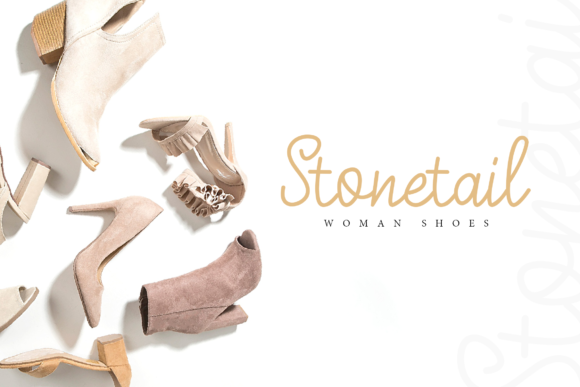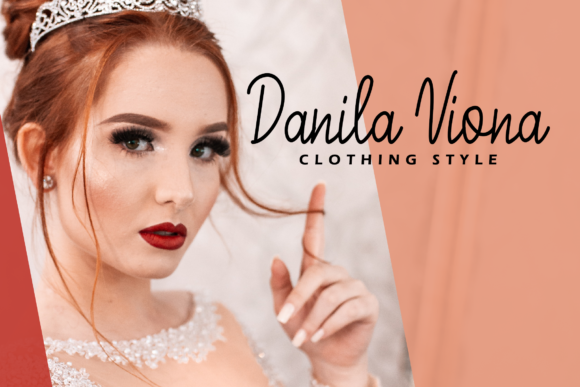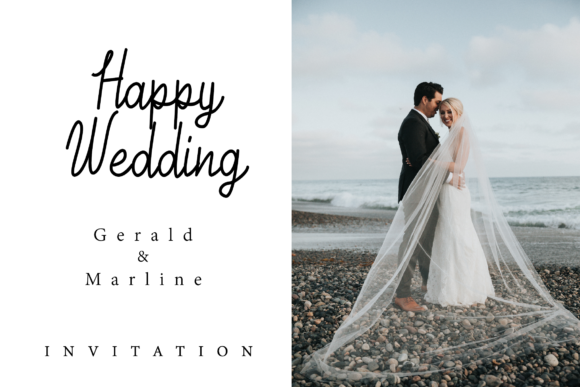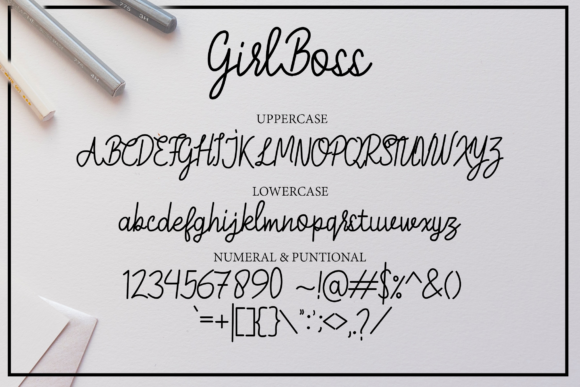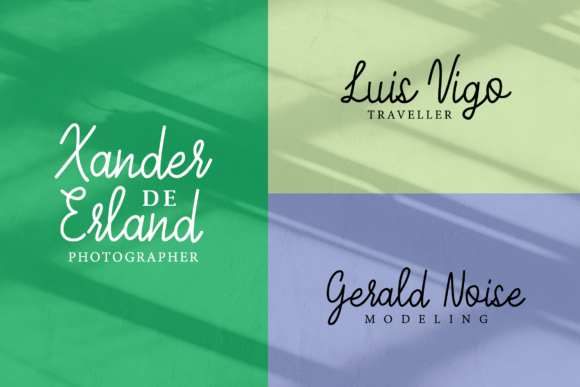
Unleash Your Creativity with Girl Boss Font: The Ultimate Script Font for Designers and Crafters
Are you tired of using the same old fonts in your designs? Do you want to add a touch of elegance and sophistication to your projects? Look no further than the Girl Boss Font, a romantic and dynamic script font that is sure to turn any design idea into a true standout!
What is Girl Boss Font?
Girl Boss Font is a beautifully crafted script font that is perfect for designers and crafters who want to add a touch of femininity and glamour to their projects. With its flowing lines and delicate curves, this font is sure to make your designs stand out from the crowd.
Key Features of Girl Boss Font
- Romantic and Dynamic: Girl Boss Font is a romantic and dynamic script font that is perfect for creating beautiful and eye-catching designs.
- Unique and Elegant: With its unique and elegant design, this font is sure to add a touch of sophistication to any project.
- Perfect for Branding and Marketing: Girl Boss Font is perfect for branding and marketing projects, including logos, brochures, and social media graphics.
- Supports Multiple Languages: This font supports multiple languages, making it perfect for designers and crafters who work with international clients.
Why Choose Girl Boss Font?
There are many reasons why designers and crafters choose Girl Boss Font for their projects. Here are just a few:
- Easy to Read: Girl Boss Font is easy to read, even at small sizes, making it perfect for body text and captions.
- Versatile: This font is versatile and can be used for a wide range of projects, from logos and branding to social media graphics and blog posts.
- High-Quality: Girl Boss Font is a high-quality font that is designed to look great on any device or platform.
How to Use Girl Boss Font in Your Designs
Using Girl Boss Font in your designs is easy! Here are a few tips to get you started:
- Pair it with a Bold Font: Pair Girl Boss Font with a bold font to create a striking contrast and add visual interest to your designs.
- Use it for Headings and Titles: Use Girl Boss Font for headings and titles to add a touch of elegance and sophistication to your designs.
Who is Girl Boss Font for?
Girl Boss Font is perfect for designers and crafters who want to add a touch of elegance and sophistication to their projects. This font is ideal for:
- Graphic Designers: Graphic designers who want to create beautiful and eye-catching designs for their clients.
- Crafters: Crafters who want to add a personal touch to their handmade projects, such as cards, scrapbook pages, and journal entries.
- Small Business Owners: Small business owners who want to create a professional and cohesive brand identity.